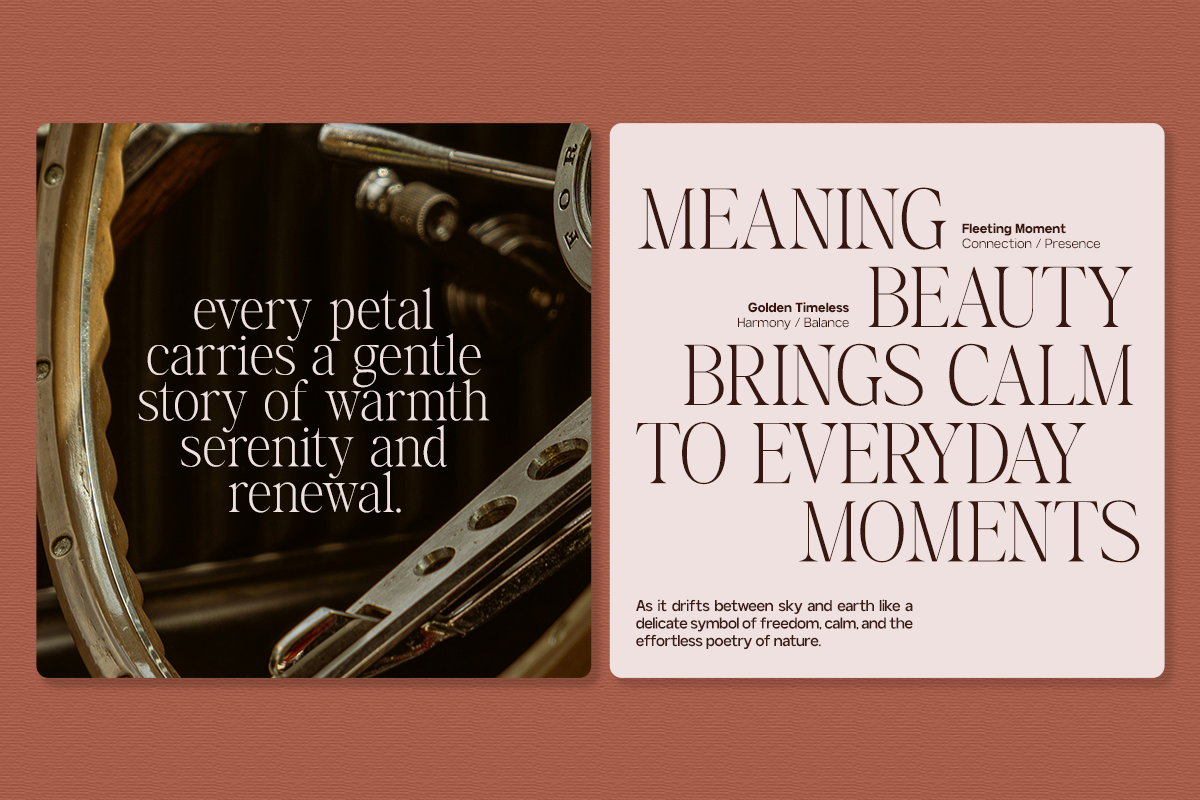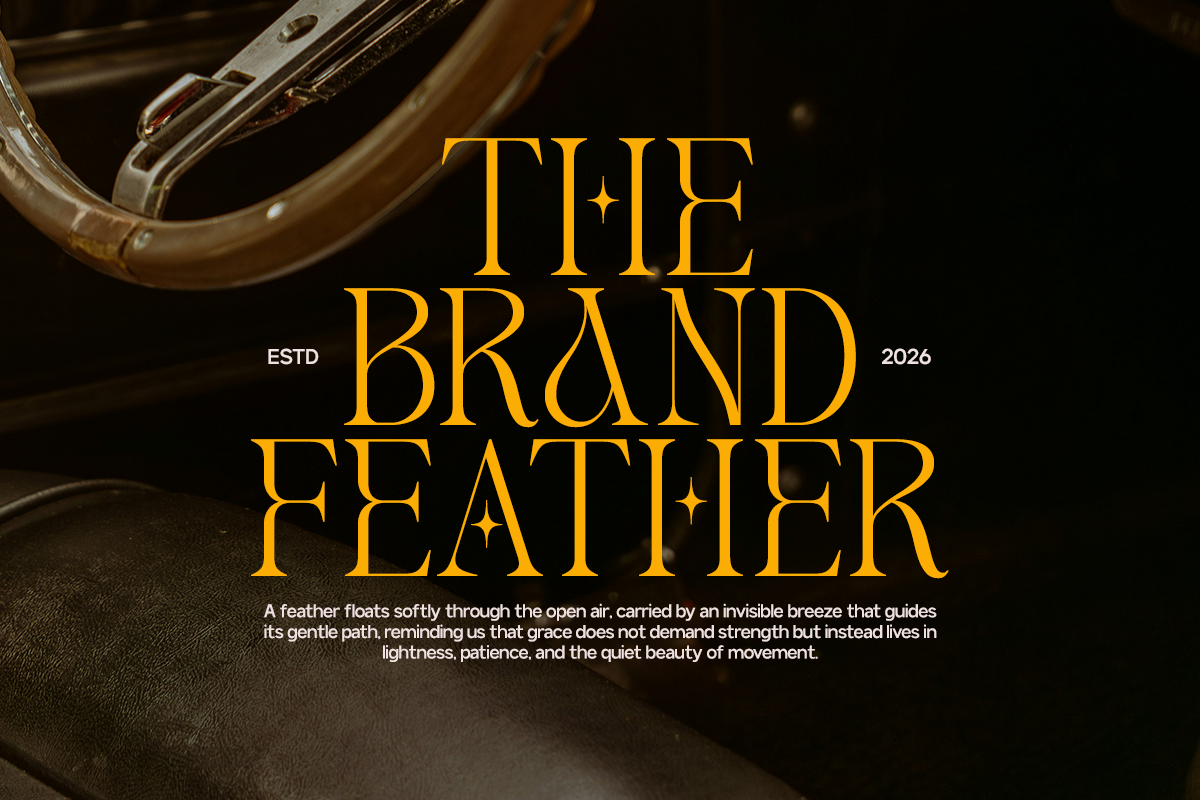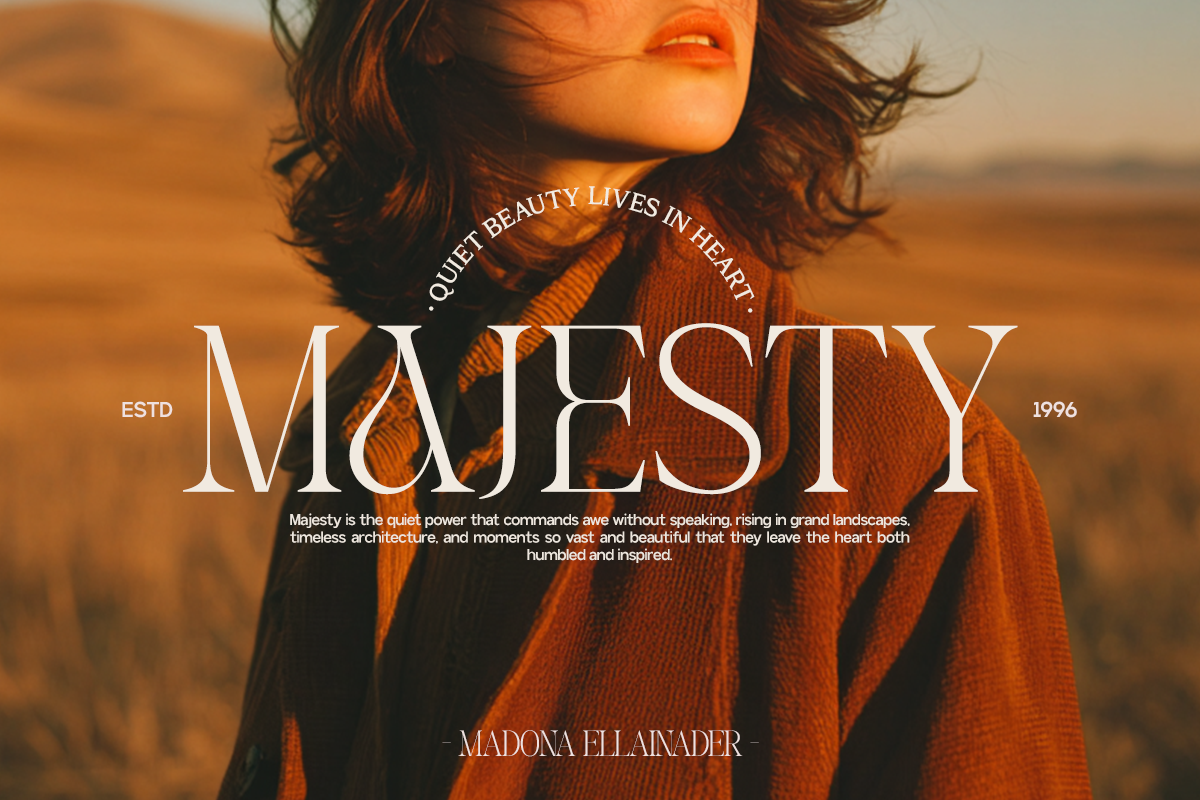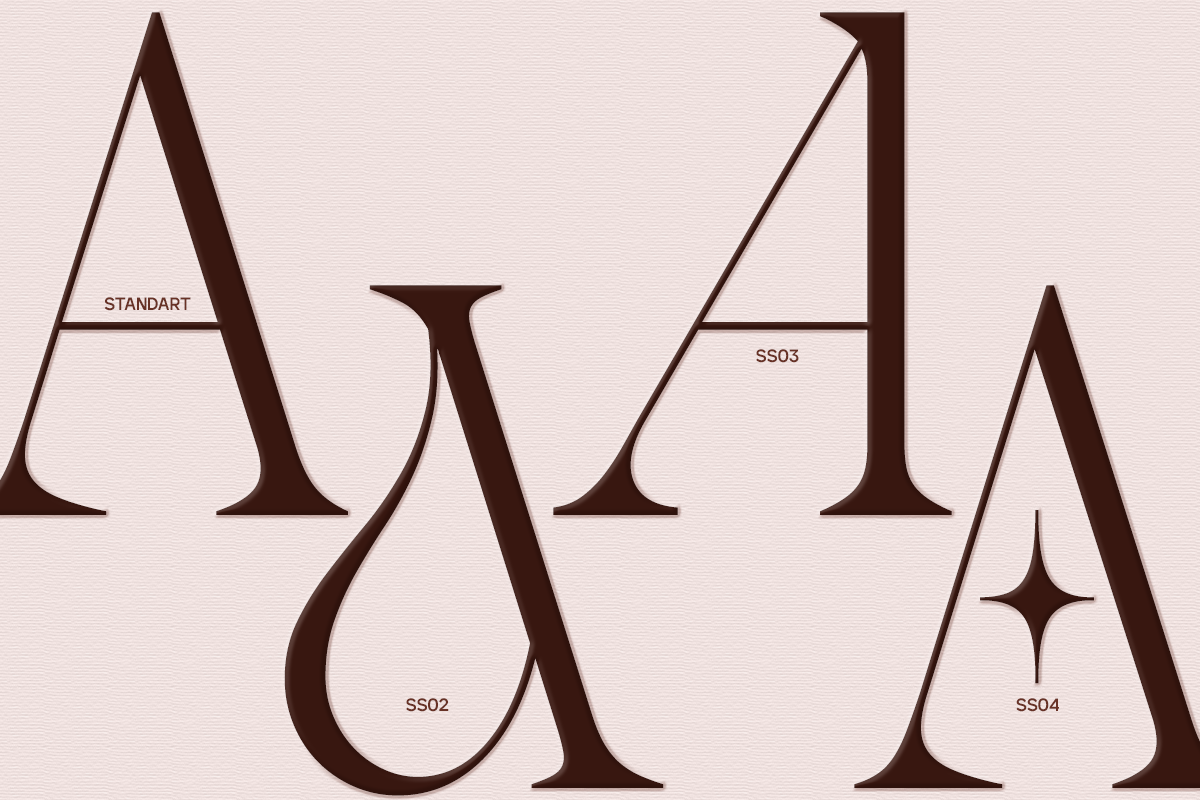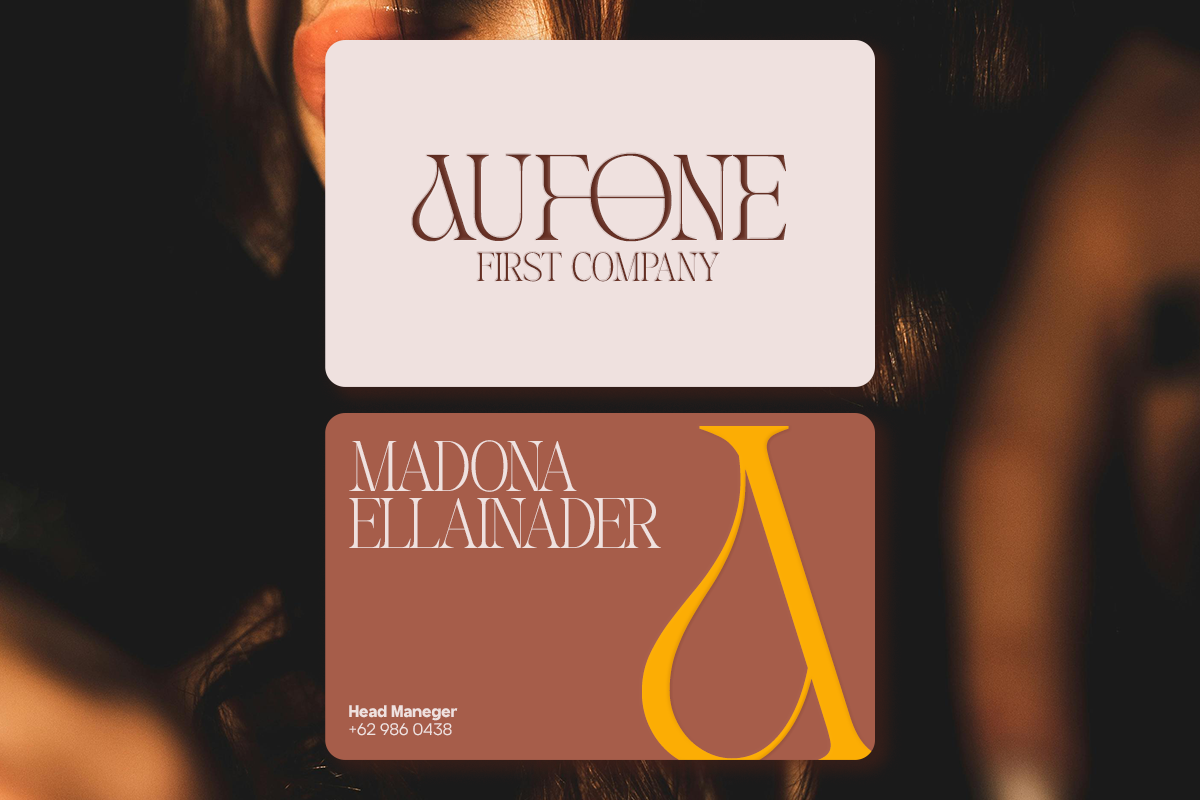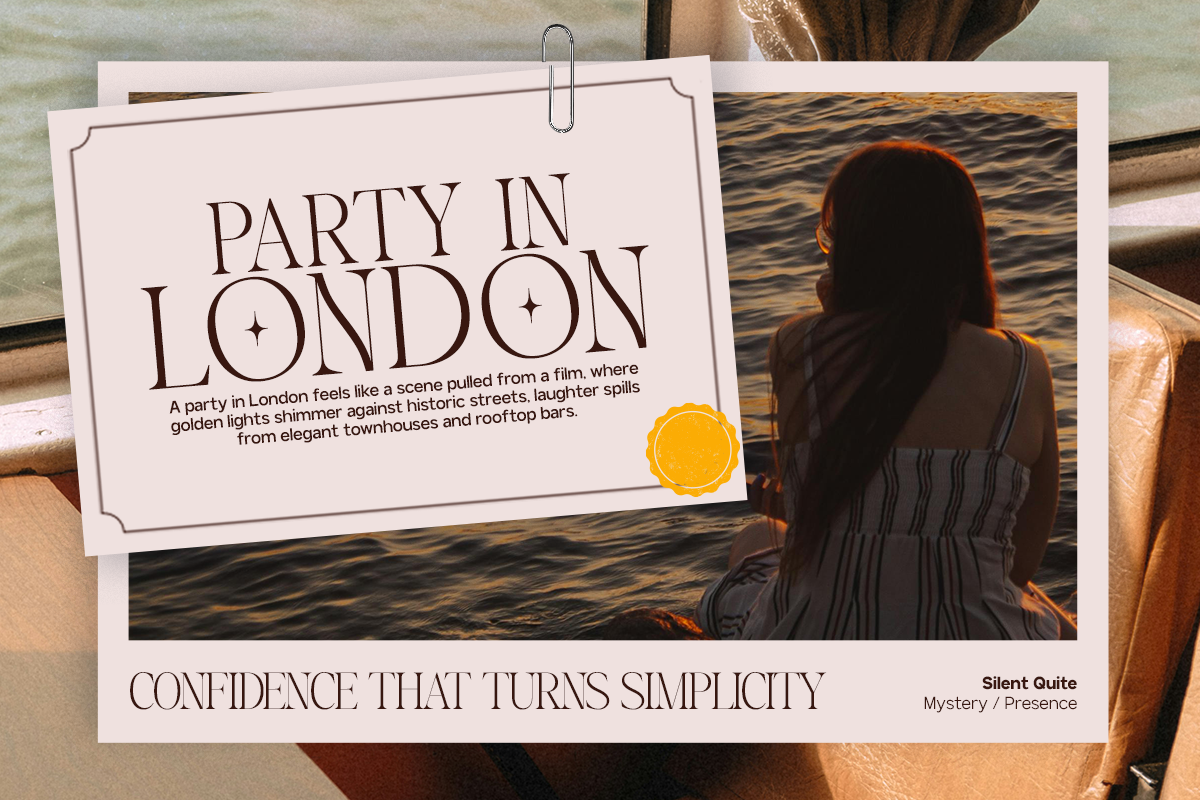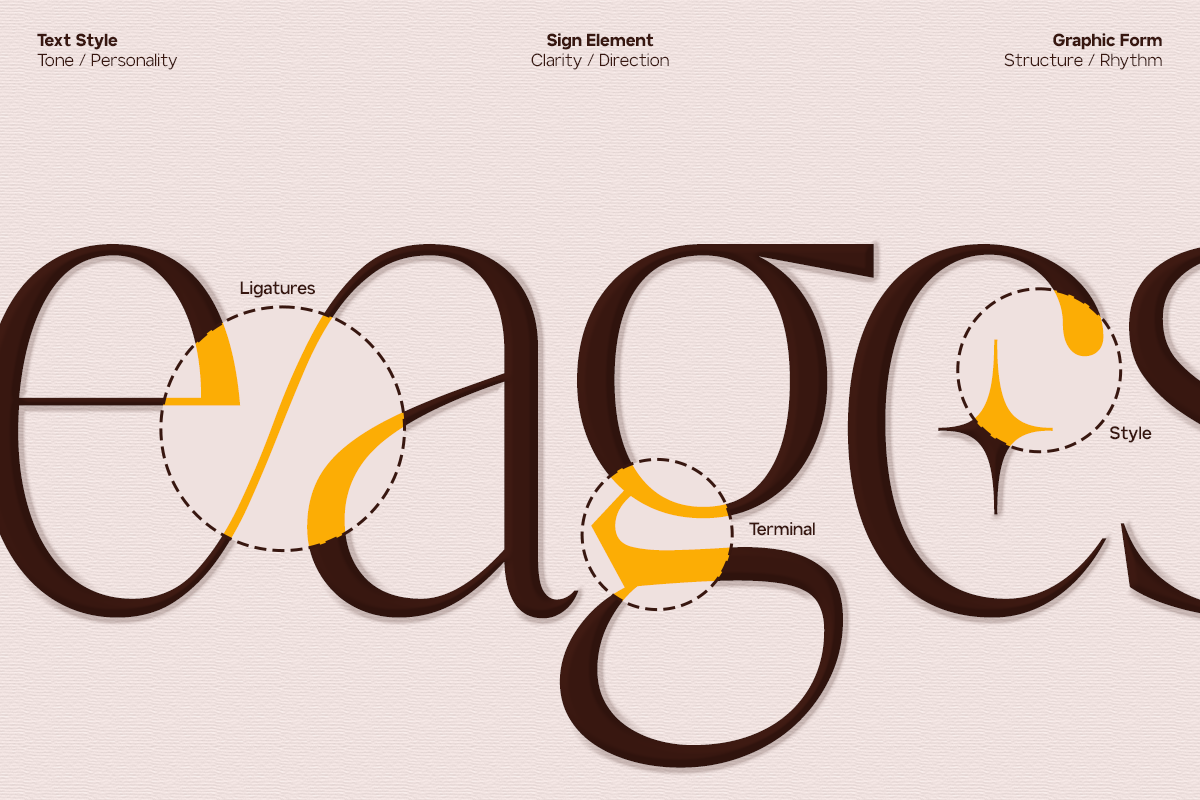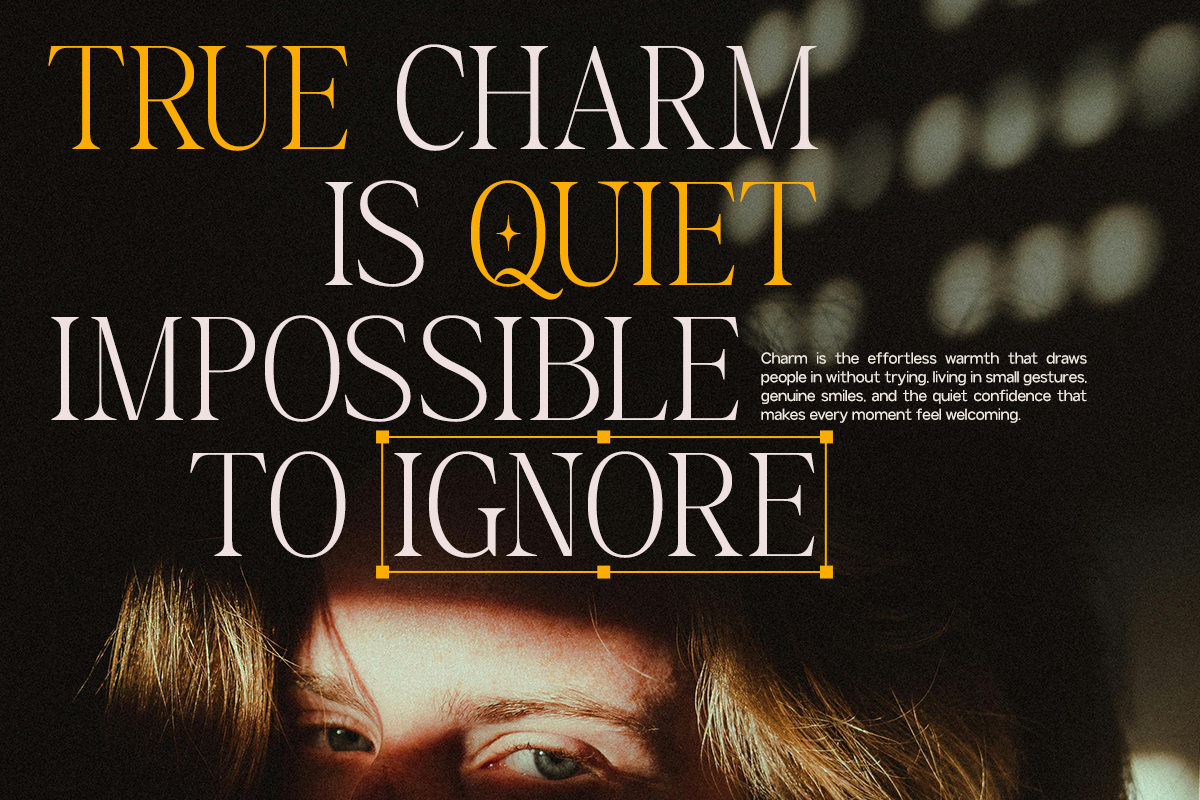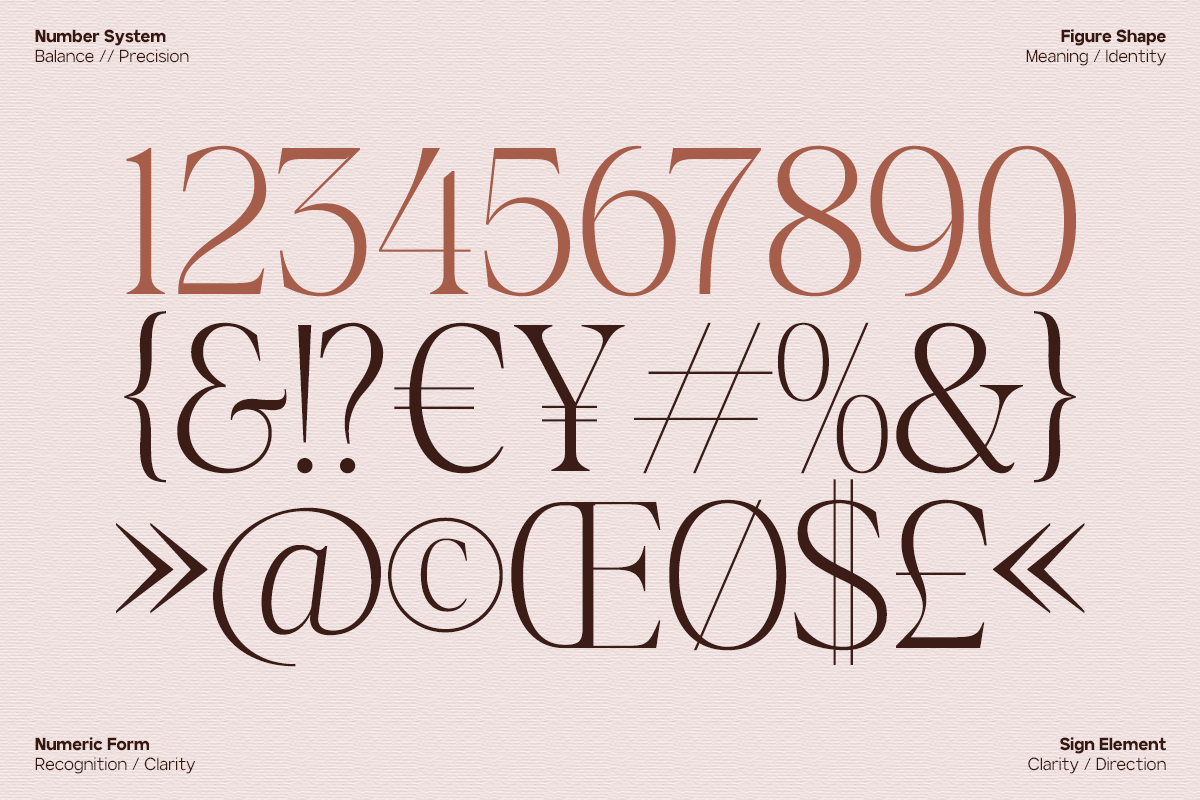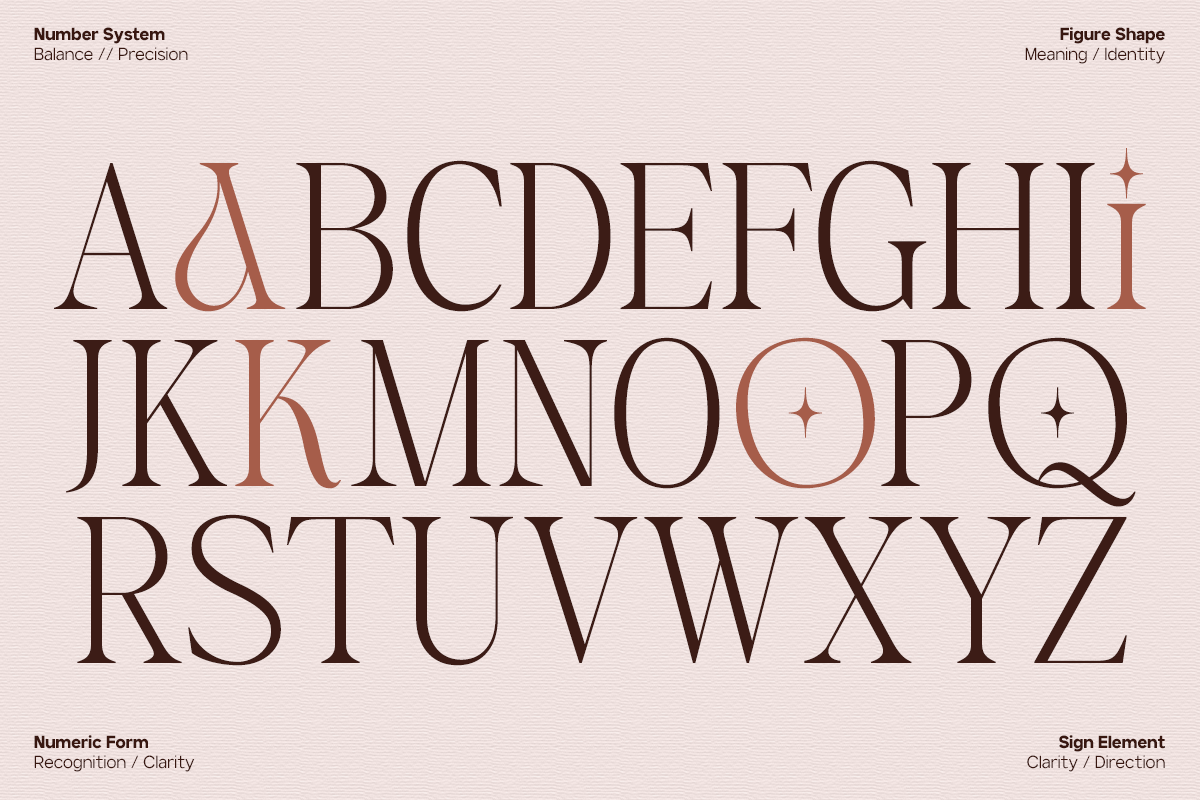
GC Asthera – Modern Display Serif
GC Asthera – Modern Display Serif is a refined display serif typeface designed to bring elegance, sophistication, and dramatic character to contemporary typography. Featuring high-contrast strokes, graceful curves, and distinctive sculpted serifs, GC Asthera creates a luxurious visual presence that feels both timeless and modern.
Inspired by fashion, beauty, and premium editorial aesthetics, GC Asthera combines delicate details with expressive letterforms to create an elegant yet confident typographic voice. Its refined proportions and dramatic contrast make it especially effective in large-scale typography, where every curve and serif can become part of the visual identity.
Designed for sophisticated creative applications, GC Asthera performs beautifully across fashion branding, beauty campaigns, editorial layouts, magazine covers, luxury packaging, logos, and elegant advertising. Its distinctive display character allows brands to communicate grace and exclusivity while maintaining a contemporary edge.
Whether used for a striking wordmark, an editorial headline, or a luxury campaign, GC Asthera brings expressive serif elegance with a polished modern attitude.
* Modern Display Serif Typeface
* High-Contrast Stroke Structure
* Elegant & Sculpted Serifs
* Refined Editorial Character
* Dramatic & Sophisticated Letterforms
* Perfect for Large-Scale Typography
* Suitable for Fashion, Beauty & Luxury Branding
* Ideal for Editorial, Packaging & Logo Design
* Multilingual Support (170+ Languages)
GC Asthera delivers modern elegance — a sophisticated display serif crafted for beauty, luxury, and unforgettable visual expression.